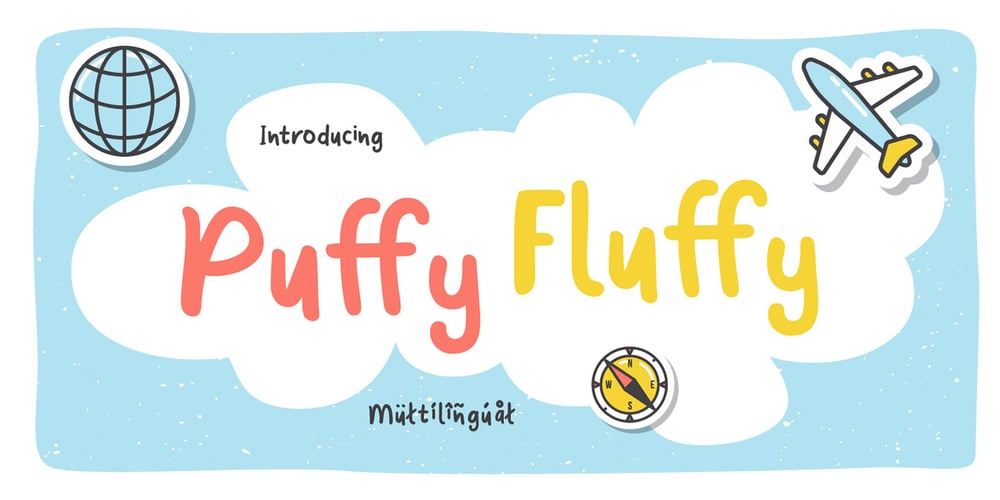
Puffy Fluffy Font Family was designed by Rendy Yanwar and published by me55enjah. Puffy Fluffy contains 1 styles and family package options. Puffy Fluffy is a casual handwritting typeface. This handmade monoline brush-strokes create a fun casual doodle typeface. This typeface can add more fun and happiness in your design. This typeface can be perfect for your greeting cards, birthday invitations, and event for a storybook, poster, quotes, etc.. Enjoy to create more cute-awesome projects with this typeface.